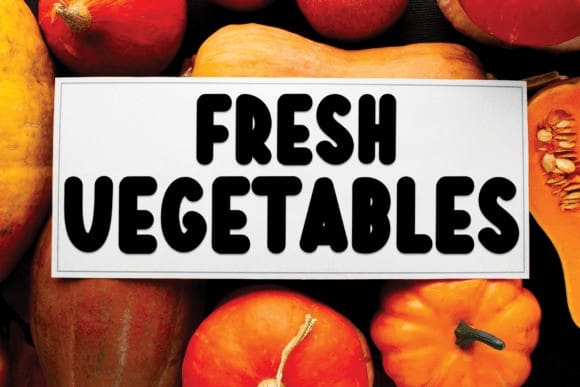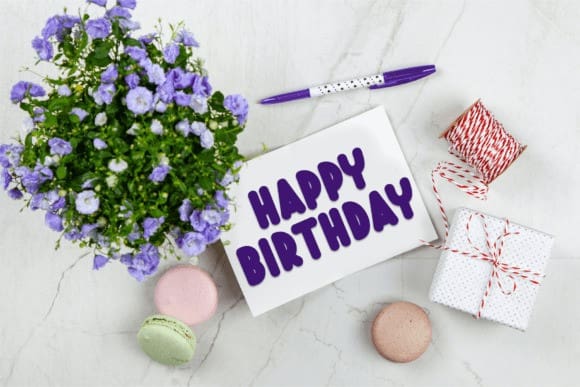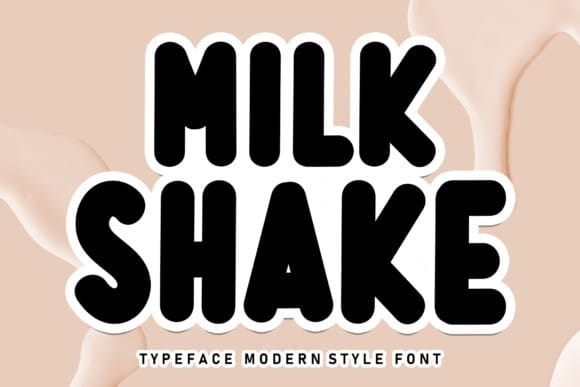
Milk Shake Font
Milk Shake Font is a sweet and friendly handwritten display font. Fresh and casual, this font is ideal for writing wedding invitations, cards, or any other design that might need a lovely touch.